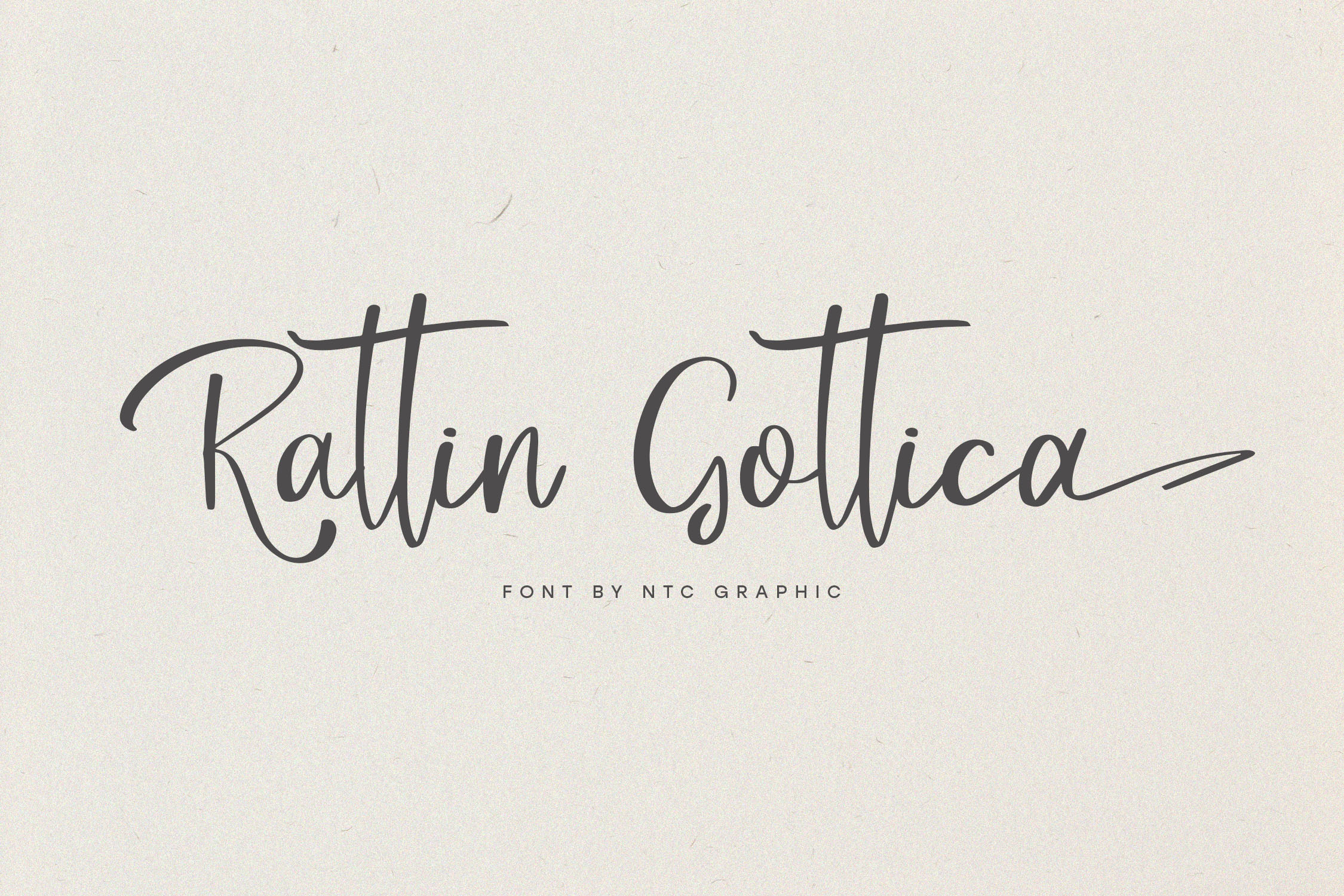
Rattin Gotica Elegant Script Font
Rattin Gotica is an elegant script font with handwritten brush style. Is a font style that is made with unique shapes font characters are really good. Can be applied to support the graphic appearance of the product to be more attractive.
- Stylistic Alternate